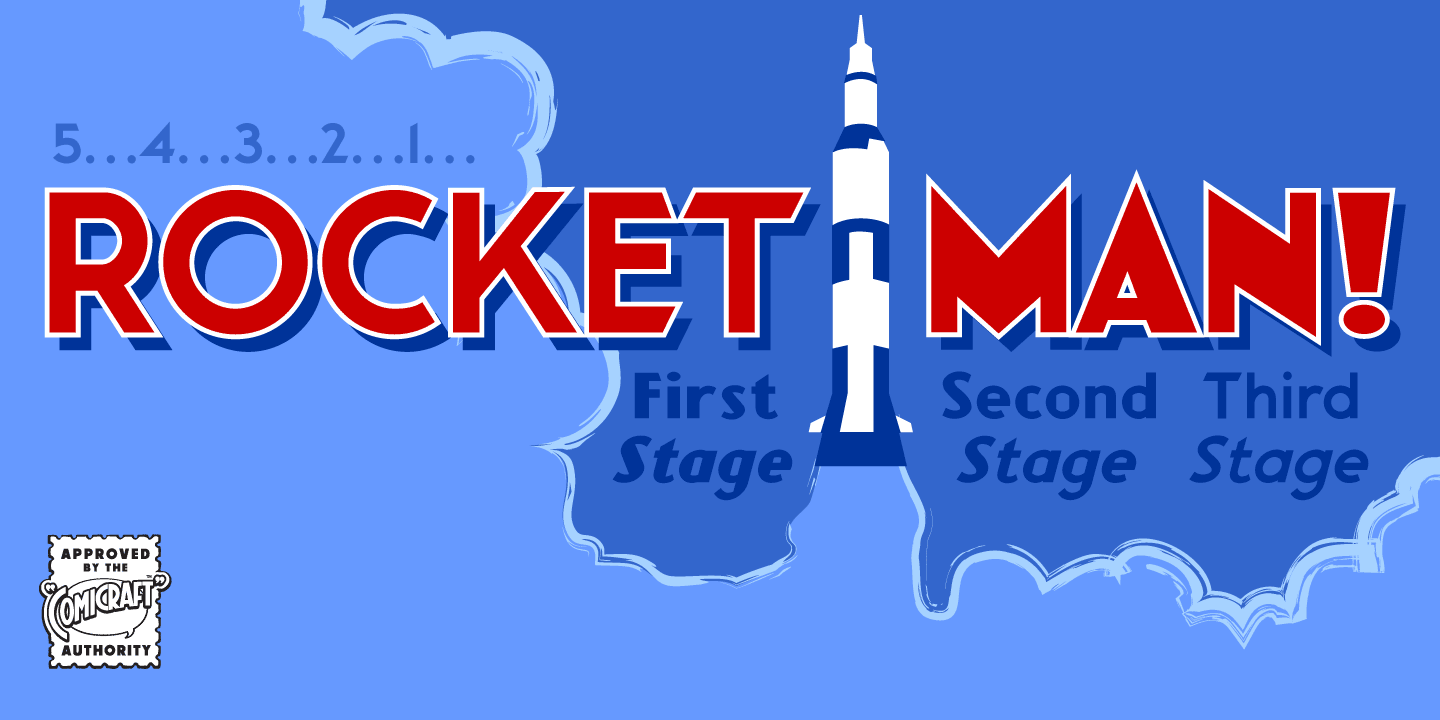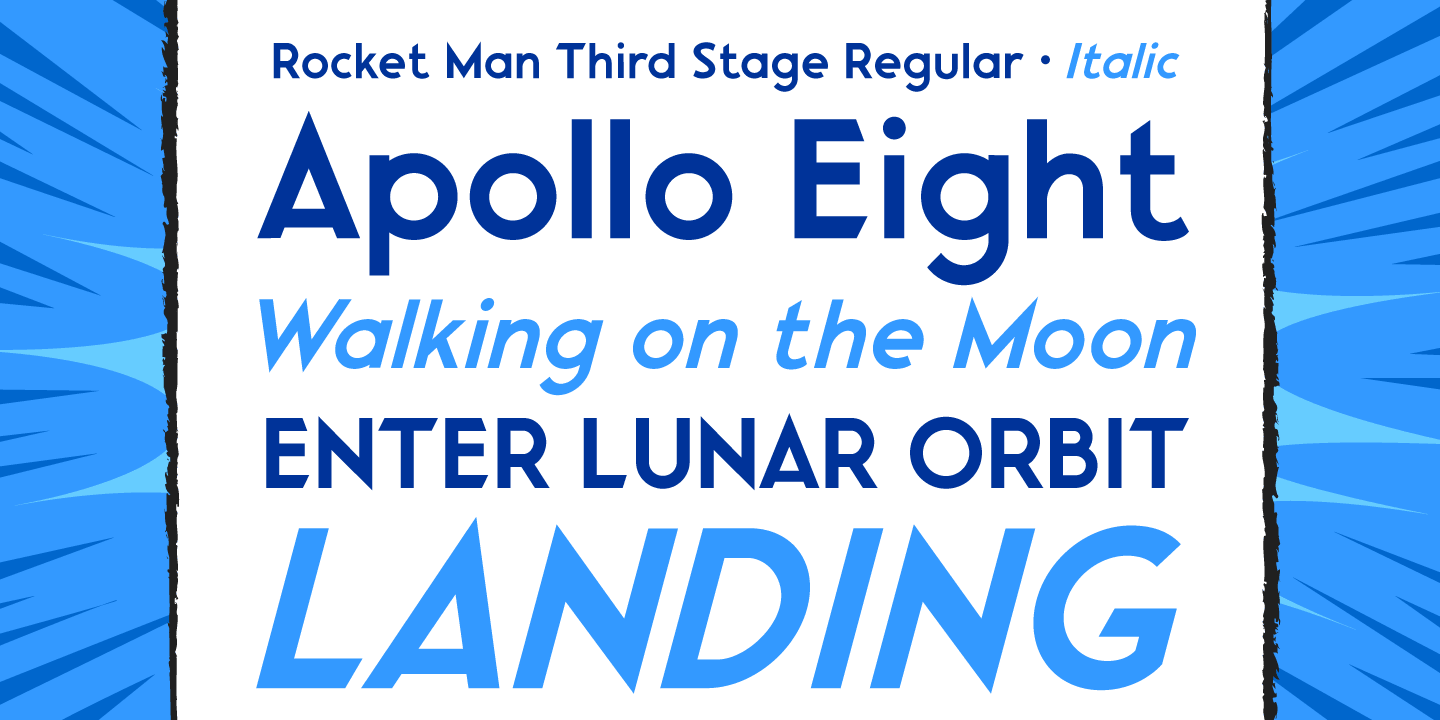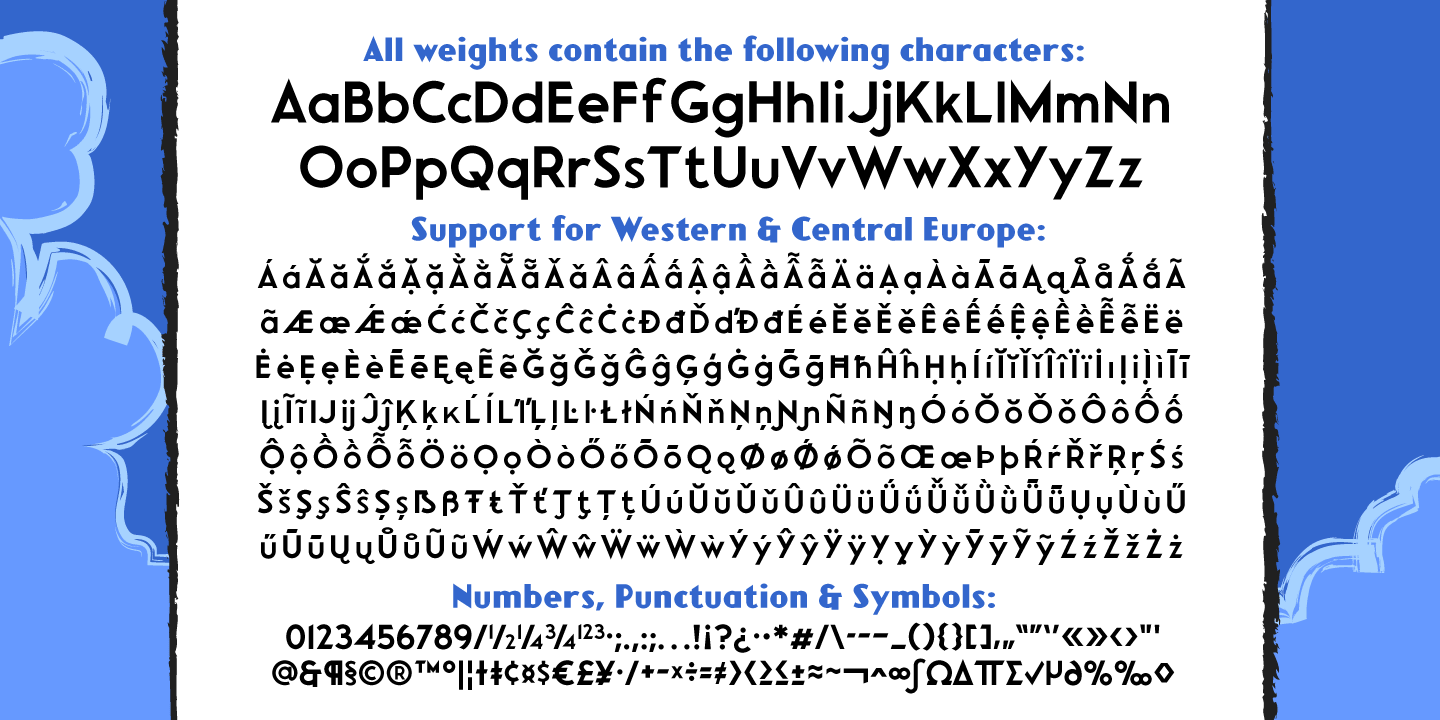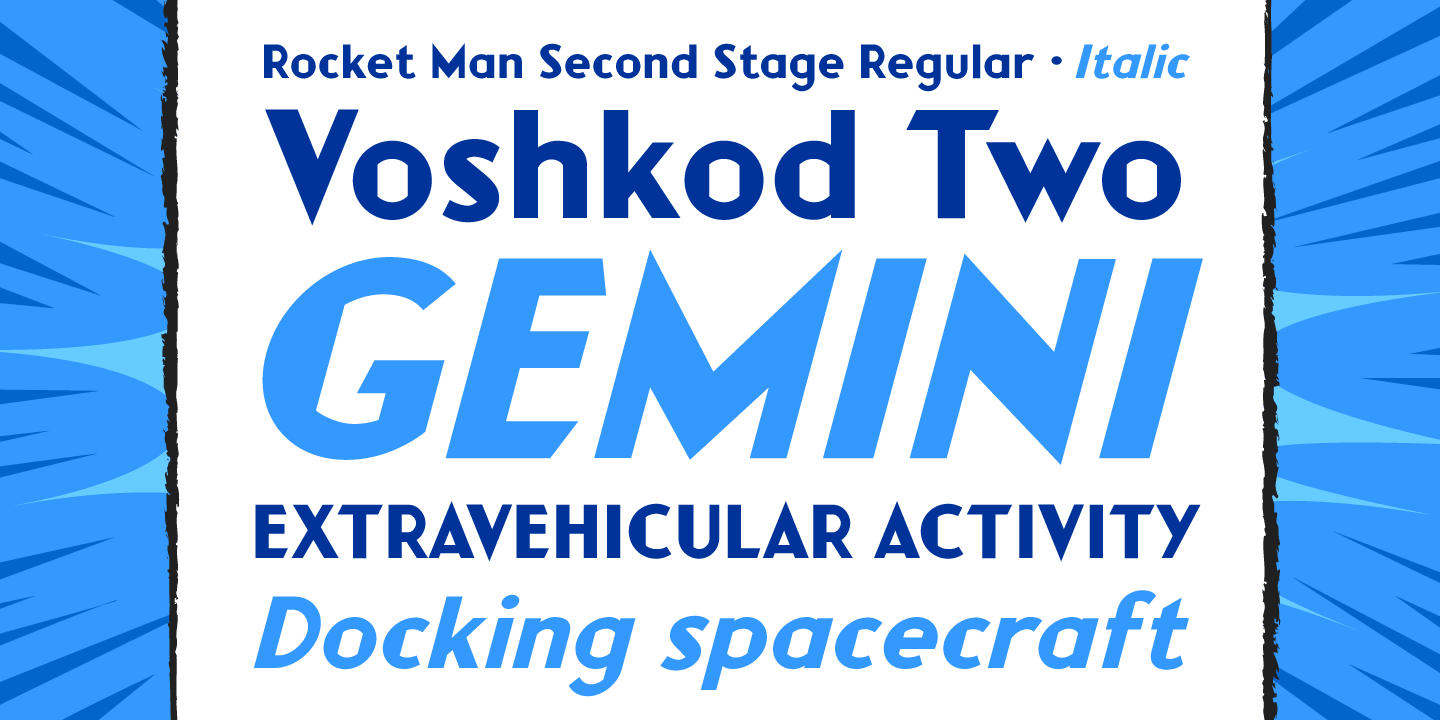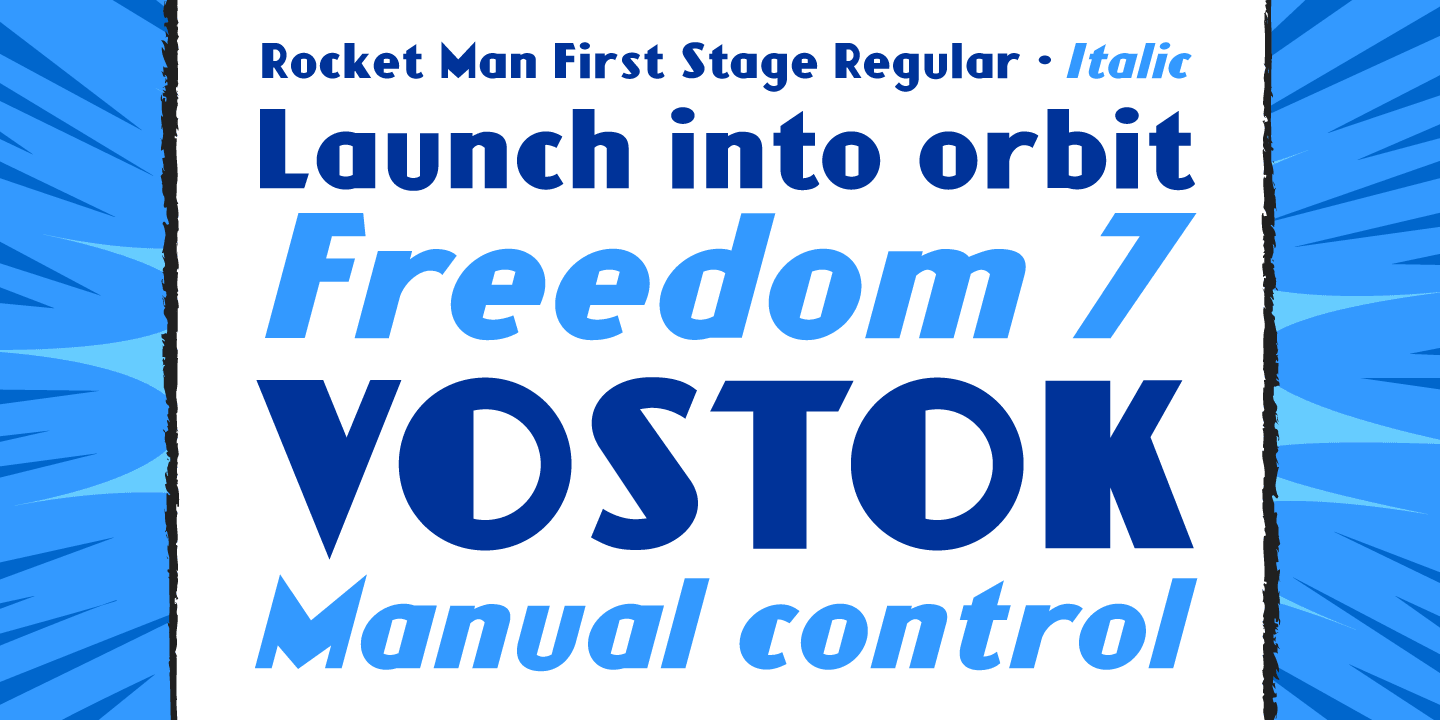
Rocket Man
Buy NowDon your Flying Suit and tighten up your Atomic Powered Jet Pack buckle! Pencil in your pencil-thin moustache and stick your head into that Rocketeering Helmet! It's Zero Hour, 9am, 1949! Five Days a Week, you ARE the King of the Rocket Men, ready to Burn out your Fuse on a Timeless Flight into Outer Space Alone!
Mission Control has advised our Space Race Typeface that Mars is not the kind of place to raise your kids and, furthermore, it's gonna be a long, long time until touchdown brings you round again to find you're not the man they think you are at home. You are in fact a ROCKET MAN; not a postman or a milkman, you're a modern man, a higher-than-a kite flying masked hero on your first manned flight to Infinity and Beyond!